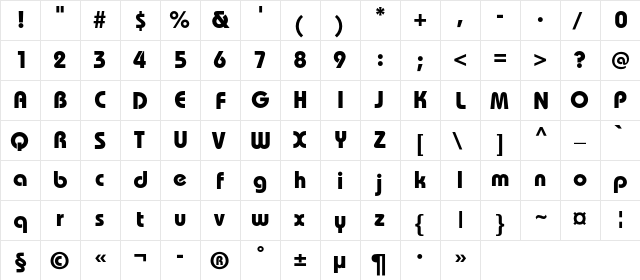
BauhausBoldC Regular
Design Context for BauhausBoldC Typeface
BauhausBoldC is a composed and adaptable typeface that performs quietly and consistently across a wide range of design contexts. The heavy weight commands attention and anchors typographic hierarchies.